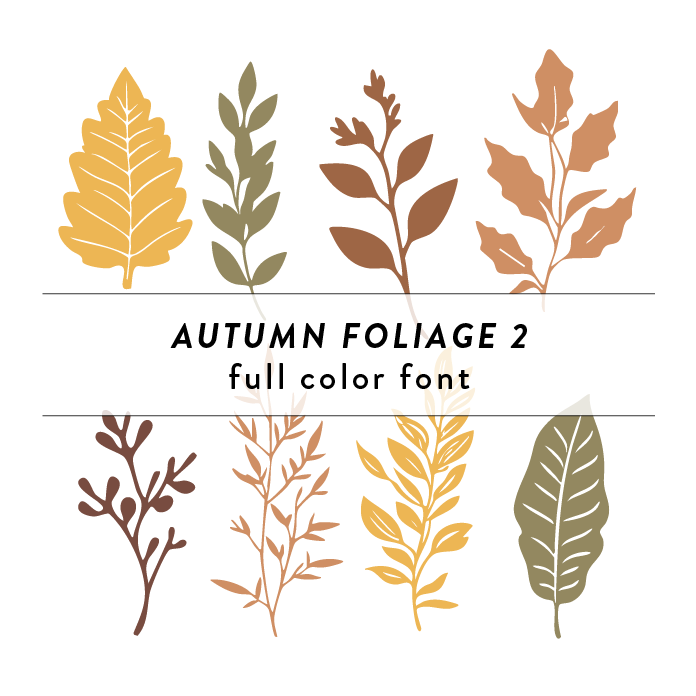
Autumn Foliage 2 Full Color Font is a whimsical and intricate font design inspired by the colors and shapes of autumn leaves. It features a variety of leaf and foliage motifs in vibrant autumn hues. This font is perfect for adding a touch of seasonal charm to craft projects, invitations, and seasonal decorations. This font is a OTF craft font that will appear in color only when used with the silhouette software.